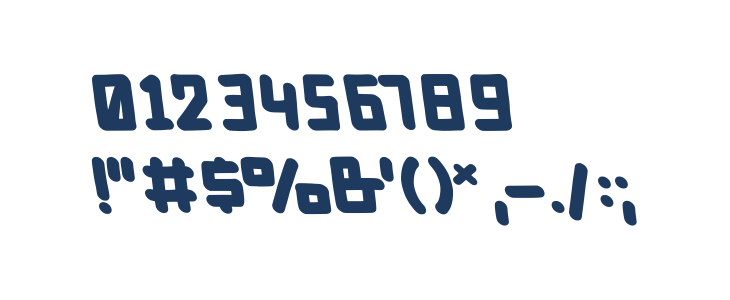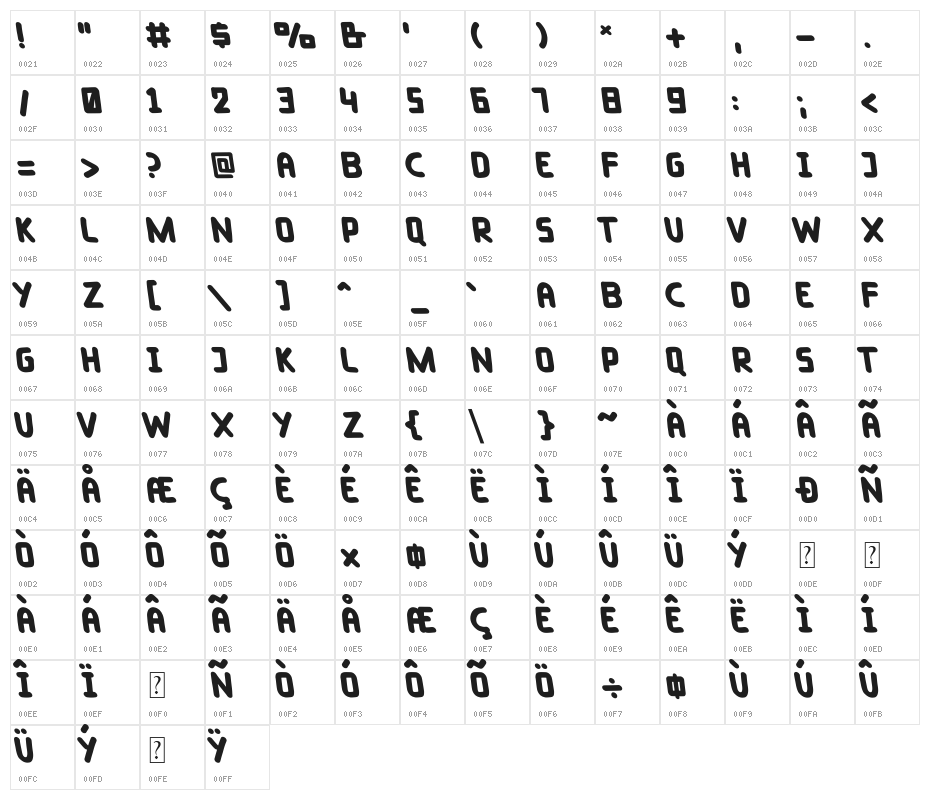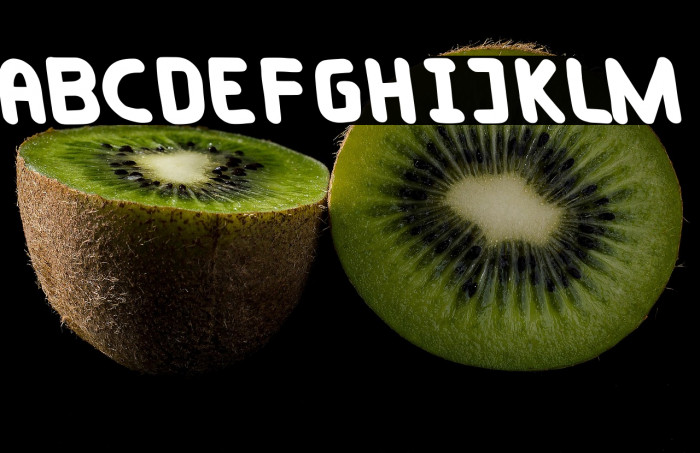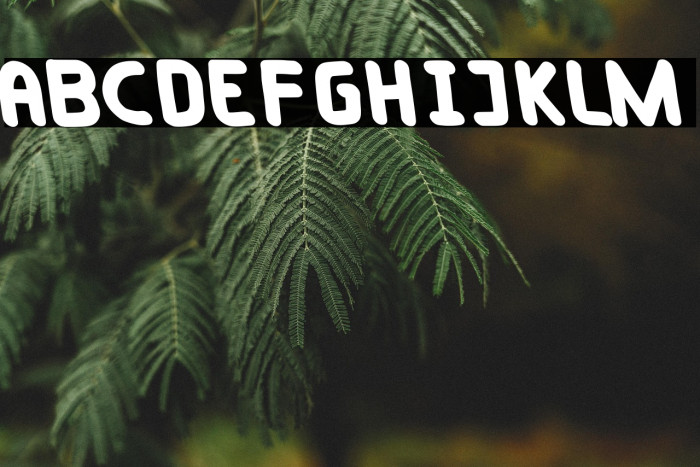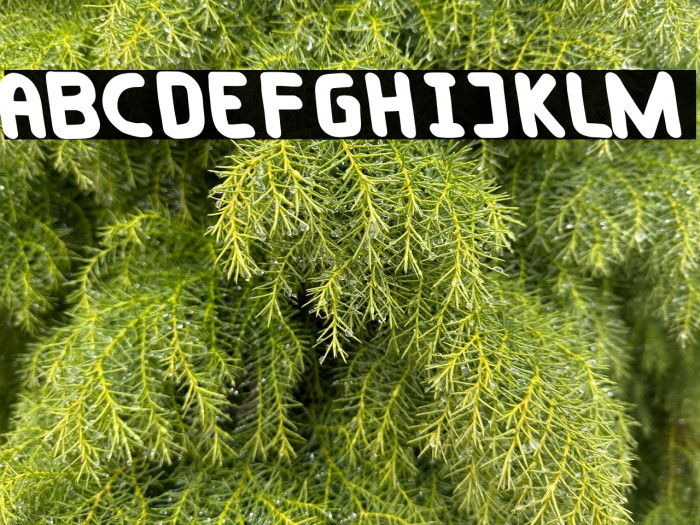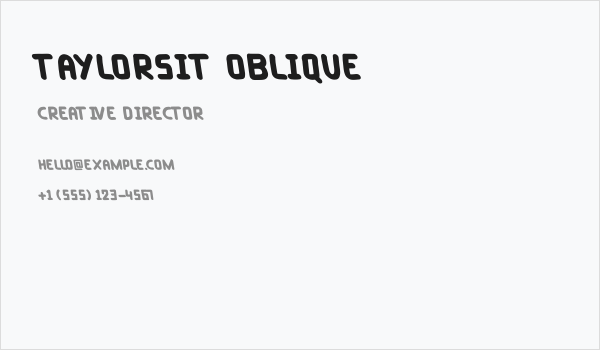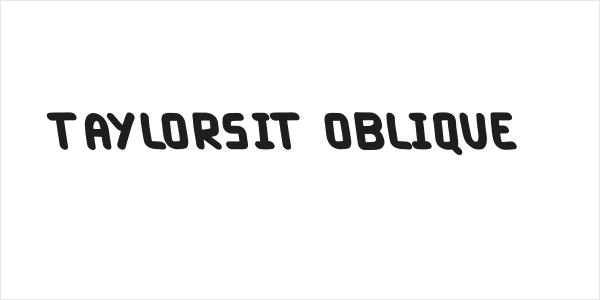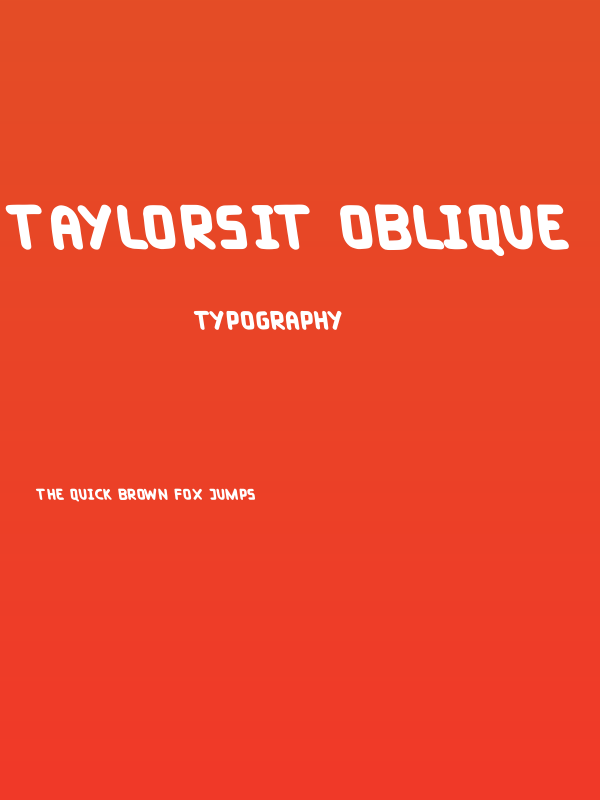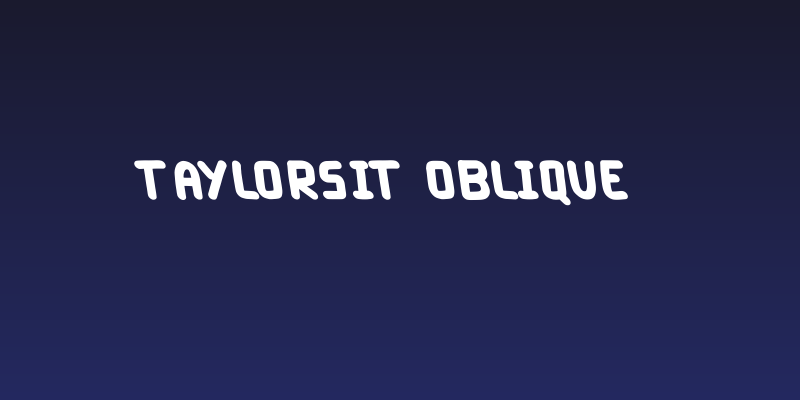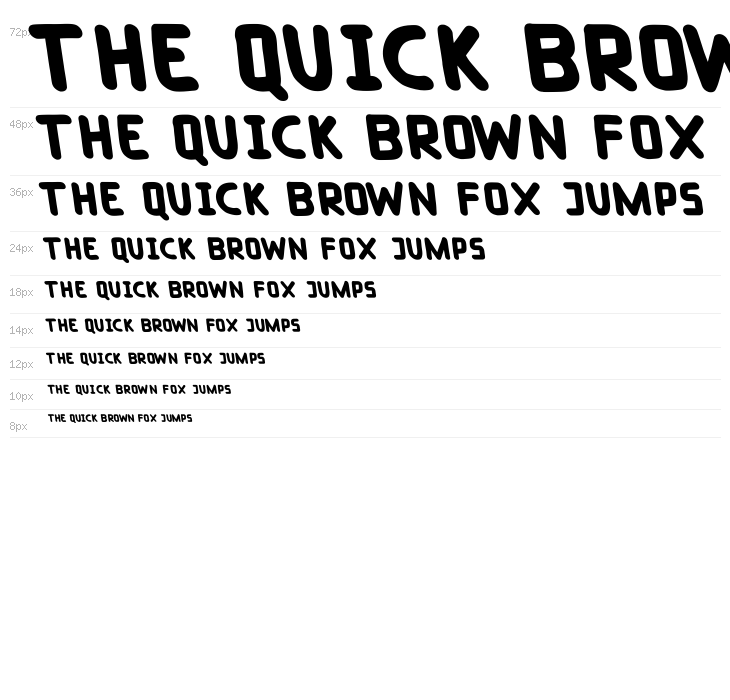
Taylorsit Oblique Font
Taylorsit Oblique Description
This font features a bold and playful design with rounded edges and a slightly oblique orientation, giving it a dynamic and informal appearance. The characters are uniformly thick, contributing to a consistent and cohesive look across both uppercase and lowercase letters. The numbers and special characters maintain the same playful style, making the font versatile for various uses. The overall aesthetic is modern and approachable, suitable for projects that require a friendly and engaging typeface.
| Overall Style | Modern, Playful |
| Proposed Projects | Ideal for children's books, playful branding, casual invitations, and creative posters. |